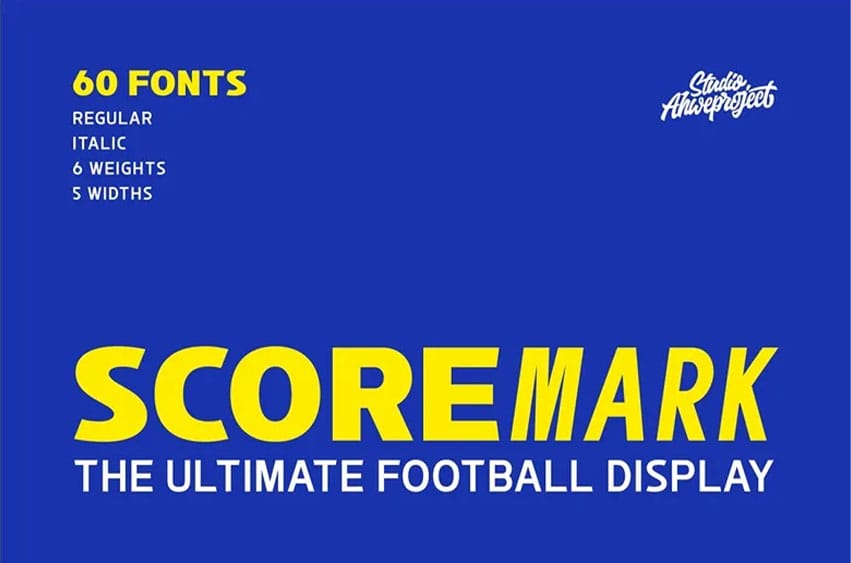
Scoremark Font is a striking sports display font that is intended to add strength, velocity and competitiveness to each headline. This font is motivated by stadium typography, professional match graphics, and team jerseys designed to take over in large-scale layouts and immediately attain attention.
Scoremark is as flexible as possible in terms of professional design. Use it in any football poster, team branding, merchandising, sports thumbnails, esports graphics, or in a powerful marketing campaign, this typeface brings solid visual authority.